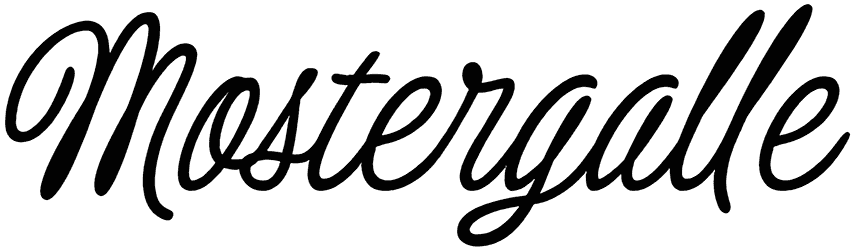
Introducing, Yourladies, a beautiful handwritten font that will allow you to make outstanding designs. This font has a cursive style that looks like it twists or gently spins on the screen. It doesn’t have good readability, especially in bulk text. It can be used for romantic letters, homeware designs, product packaging, photography, wedding invitations, and so on.